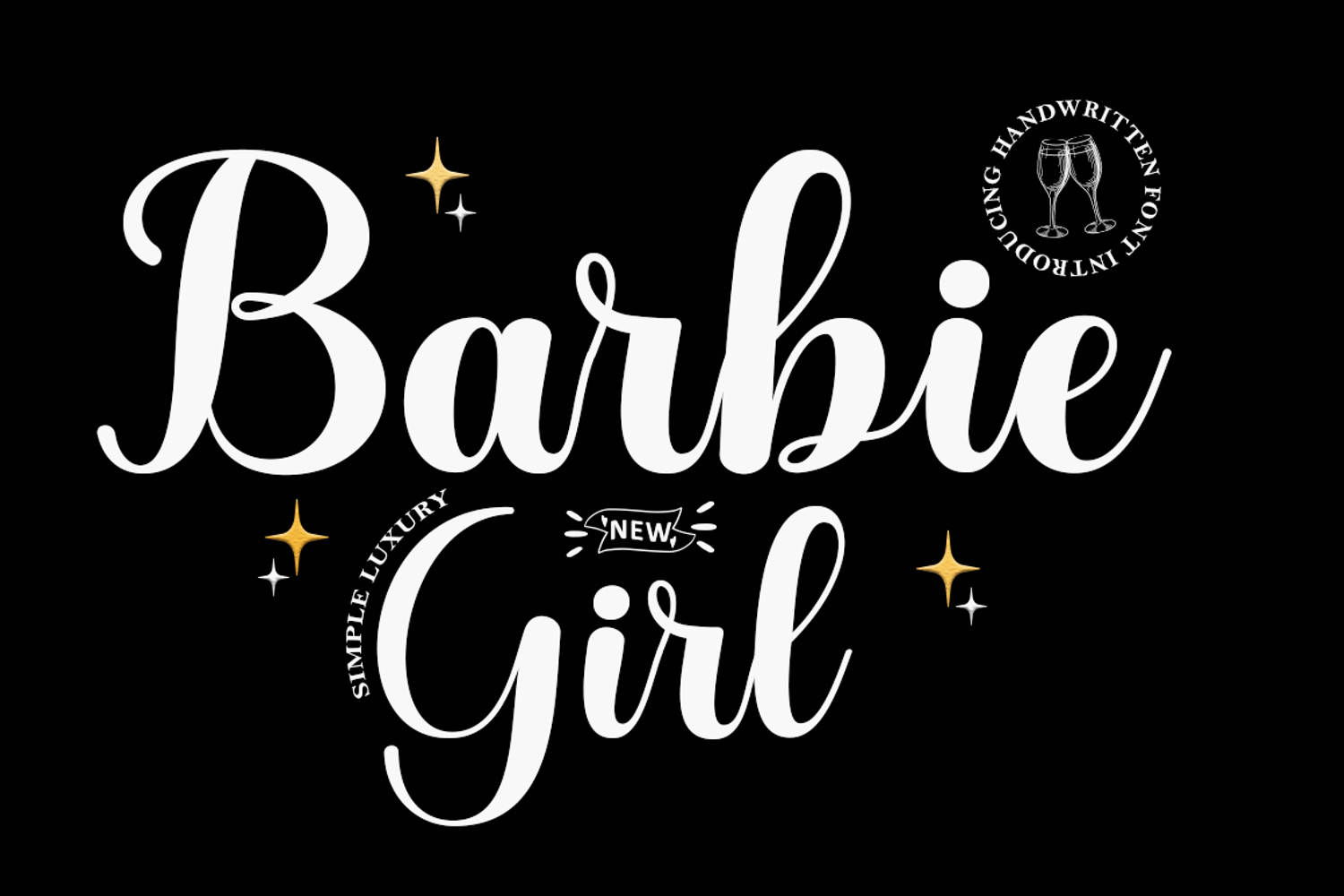
Barbie girl
Barbie Girl is an amazing typeface handmade script font that we created in freestyle for those of you who do both work and craft.
Perfect for any type of work you do for a variety of purposes such as logos, wedding invitations, titles, t-shirts, letterheads, signs, labels, news, posters, badges, etc.
Features OpenType with alternative styles, binders, and multiple language support.